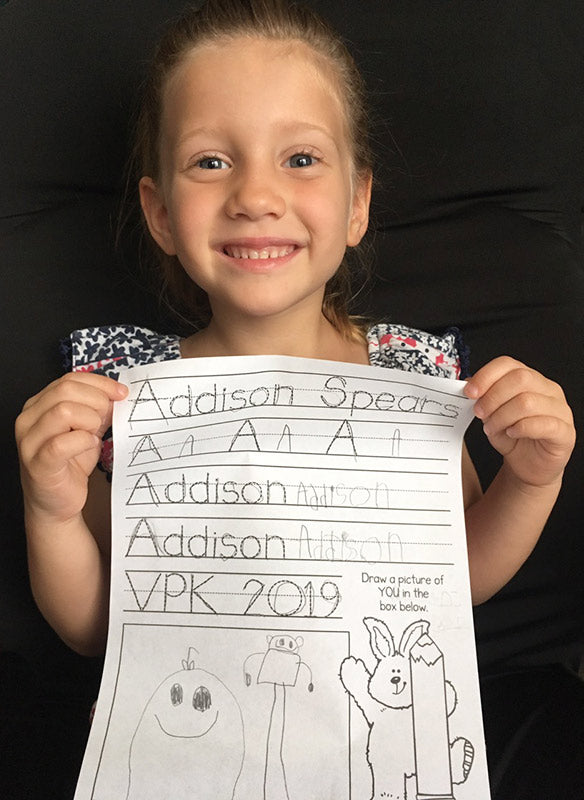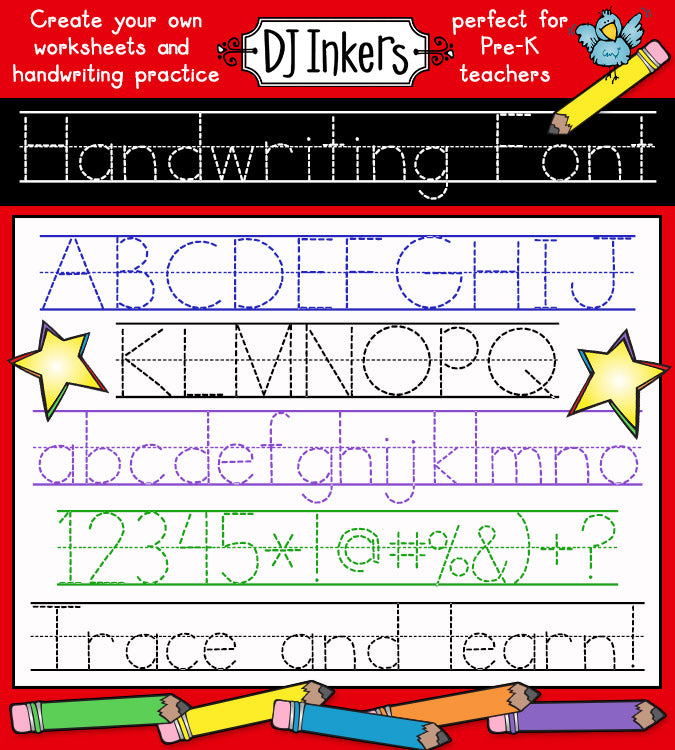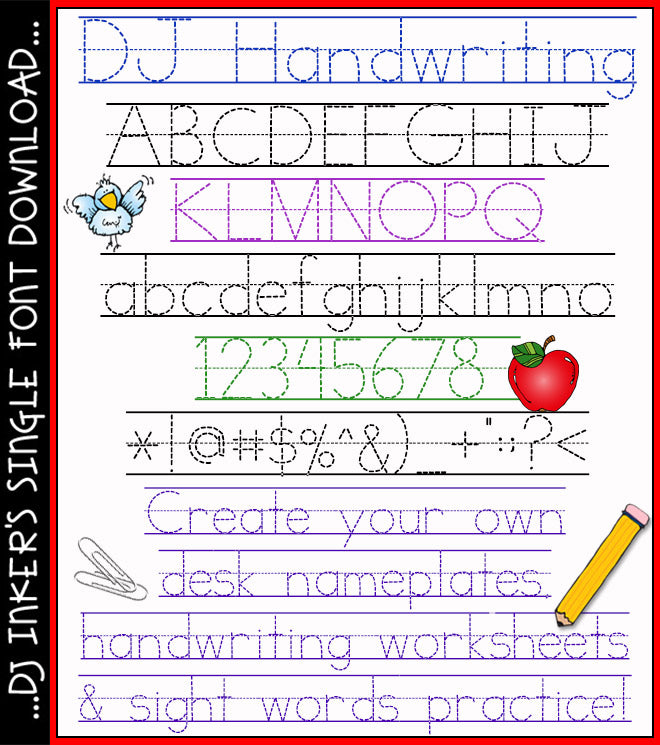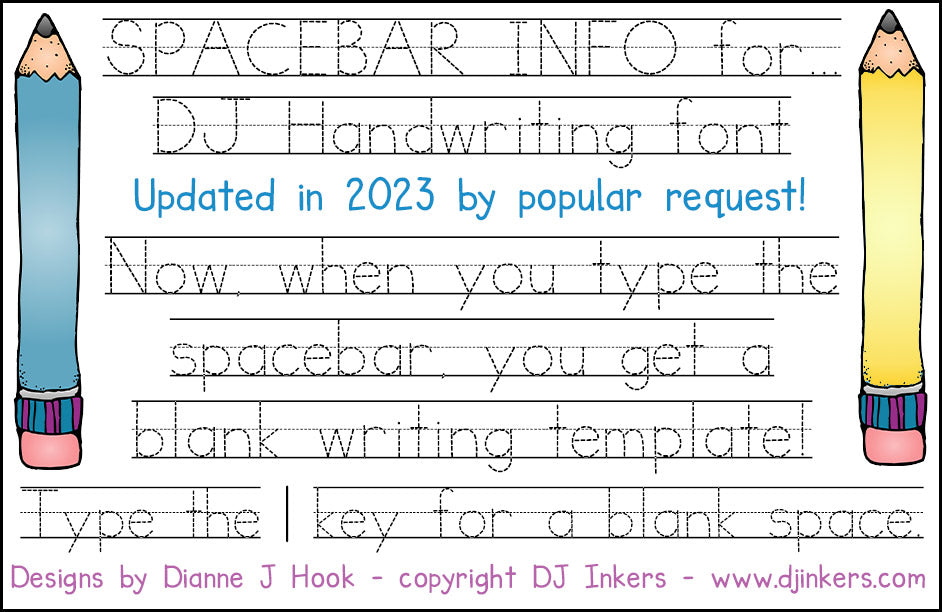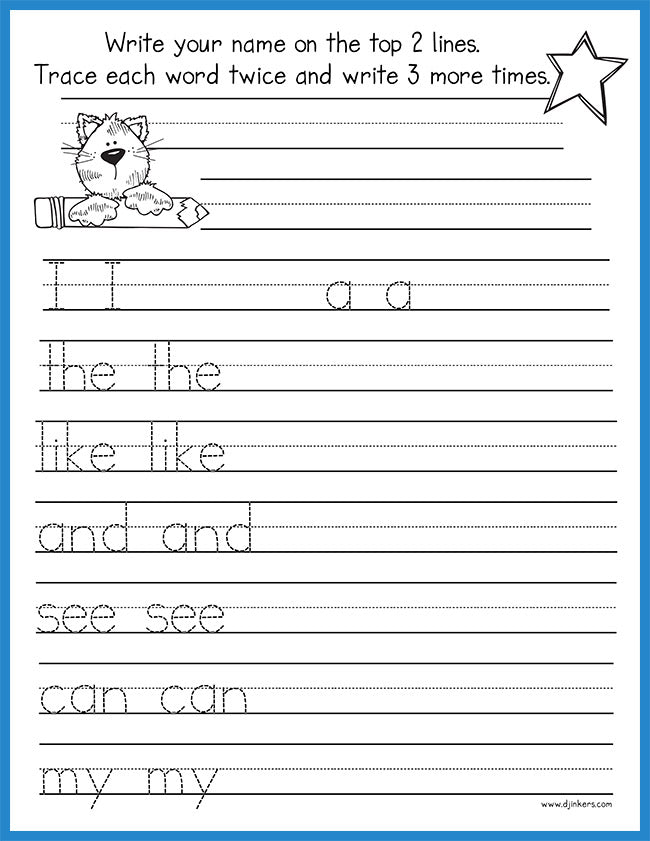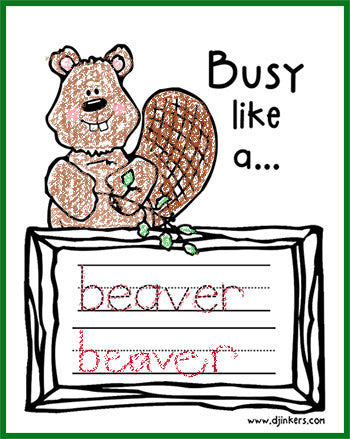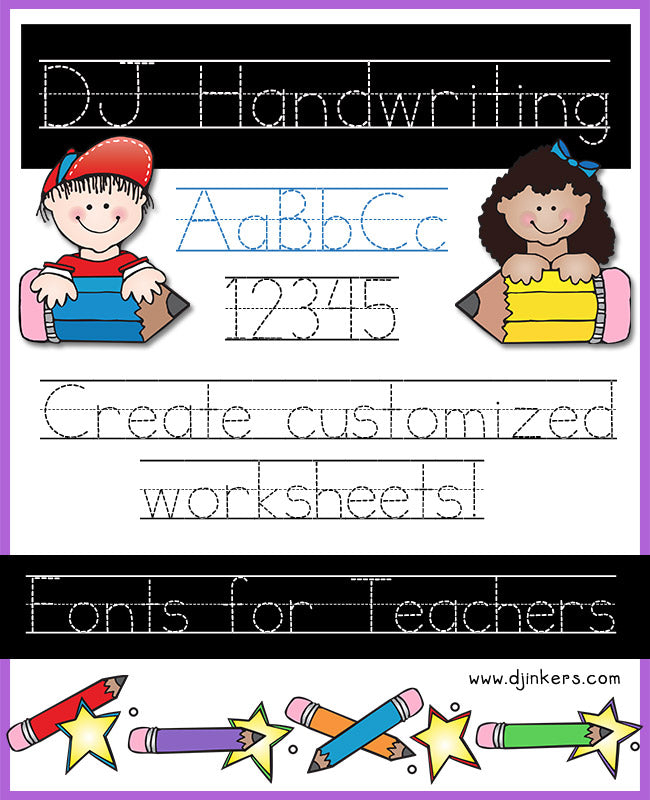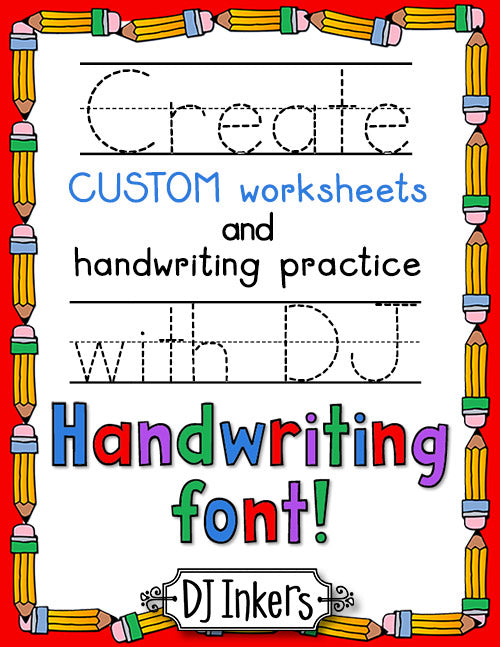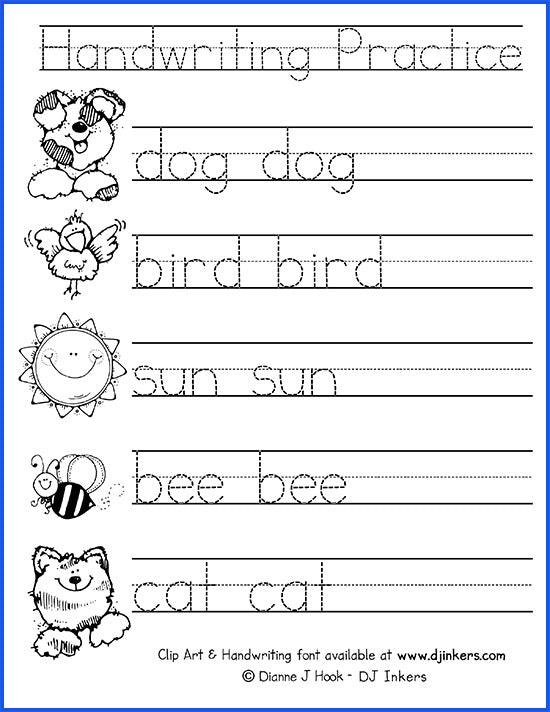
This font is great for creating resources! Very helpful!
Very helpful to use with my elementary special education class!
Love all of your resources but the level of access this created for the student's in my classroom makes learning achievable! Thank you!
Great font, helpful for practicing letter tracing.
I had been looking for a way to make scriptures that children could trace. This is what I needed. Thank you for making this available.
I love this handwriting font and it worked so good with what I was making! Thank you!
I'm such a font snob, so this was a must when creating handwriting sheets for my tier 3 intervention students!
This is a great template that I was looking for to build out a Center resource.Rating: 5/5 (extremely satisfied)
I personalize so much of my writing homework and activities. This font is perfect for kids to trace and learn their letters etc. Rating: 5/5 (extremely satisfied)
I love having this! I make a tracing mat for each month with a different focus and I can make it work exactly the way I want with this font!
I have always struggled to find handwriting sheets that I love and can justify giving time to. I really love that I can use this to make my own resources that tie in our content in class and handwriting practice!
"Thank you for this super helpful font!! It's great for ELA resources!"Rating: 5/5 (extremely satisfied)
"I'm so glad I was able to find this font! Been looking forever. I love that I can create my own worksheets for my students to trace."
This font is perfect for creating customized handwriting practice for my beginning writers. Thank you!
This resource was exactly what I was looking for to make tracing sheets for my kindergarten students to learn to write their names!
"Thank you so much for creating this resource. I have loved using it to create resources for my kiddos."Rating: 5/5 (extremely satisfied)
Fine motor activitey which students can have fun learning at the same time. Thank you
Used this with a couple of my kids who needed some extra help with their handwriting skills. Worked great!
This font has helped me to make tracing pages for my students who are still struggling with letter formation. It is very easy to use!
These fonts were just what I was looking for. Thank you so much!
Excellent tool for making worksheets and practice.
Perfect for making resources for my toddlers! He is learning how to trace.
I used this in my morning work for students to practice tracing their names and learning other important information. Super great and easy to use font!
I used this resource to create tracing worksheets. The font is dark enough for the students to see the letters clearly. It's a great resource!
This was exactly the font I was looking for! Thanks!
This resource has improved my teaching and ability to individualize work for my students and collect important data. Thank you!
I love this handwriting font! It is so very clear and easy for the kids to trace! Thank you for such a perfect font!
Students loved this resource. Perfect for first grade!
This was perfect for making handwriting worksheets for my kindergarten class! Thank you!
This was a great resource to use for students who struggled to write independently. It created a good model for their letters.
I love this font. It is correct and provides the lines as you type
Love this font! Perfect, clean, love the lines! Thank you!
This is just what I needed...the perfect tracing font! Thank you SO MUCH!!!